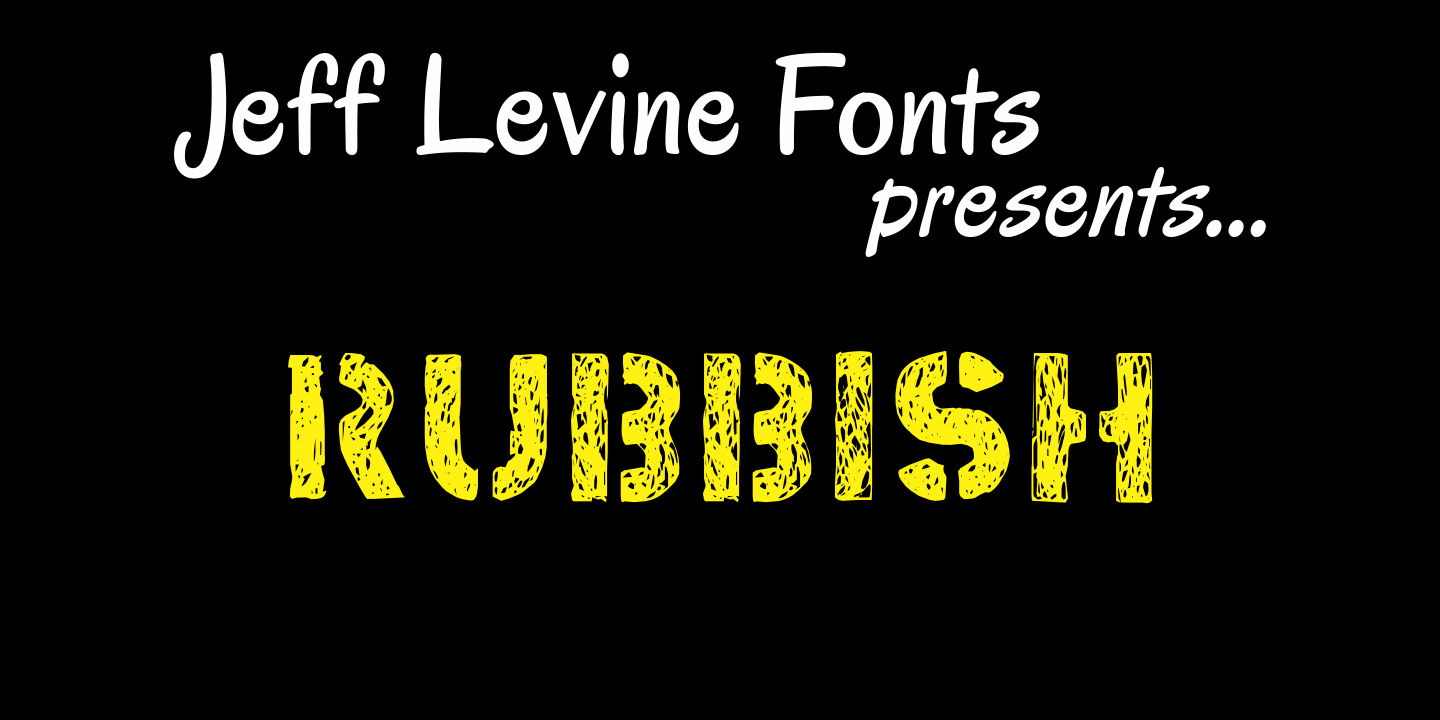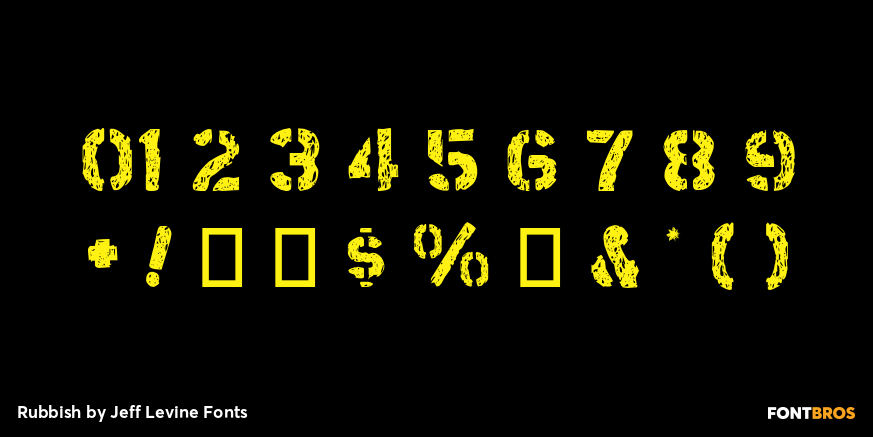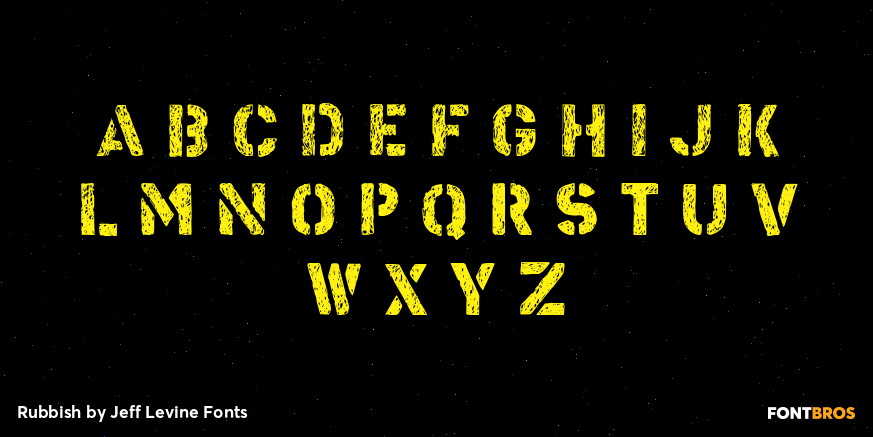
Rubbish
Rubbish JNL from Jeff Levine is simply letters scribbled from an old stencil as if made by a child...
But the look takes on a form of "stencil grunge" as well!